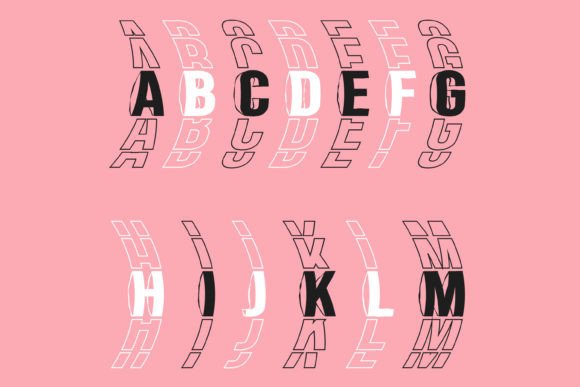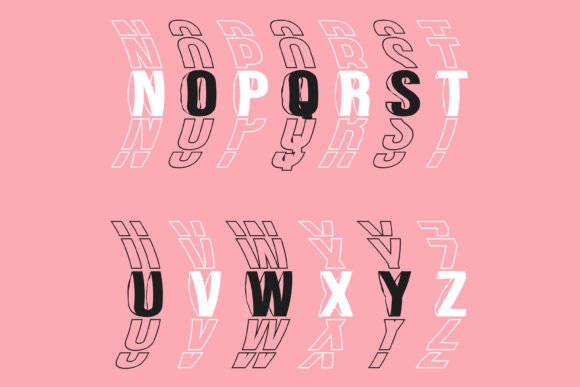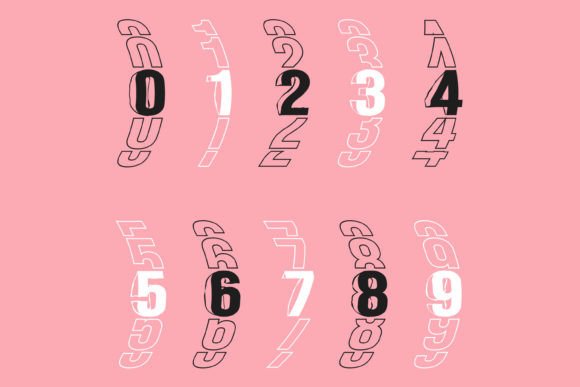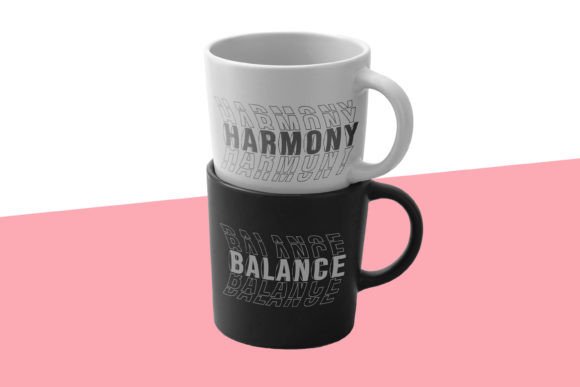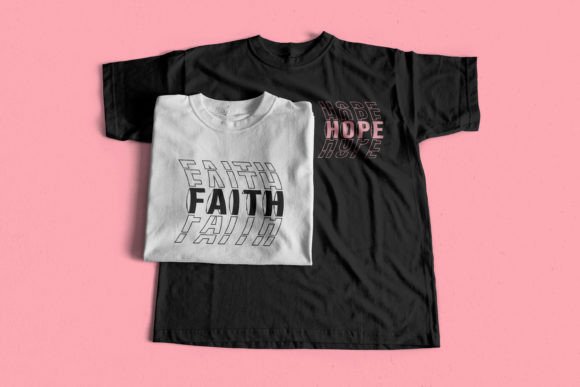
Introduction to Pipeline Font
As you sit in front of your computer, surrounded by design resources and fonts galore, you’re searching for that one special font that will elevate your creative project to the next level. It’s a moment many designers can relate to – the hunt for the perfect font that will bring your vision to life.
Enter the Pipeline Font, an incredibly cool display font that’s sure to catch your eye. With its unique style and high-quality design, it’s no wonder why designers and crafters alike are raving about this versatile font. Whether you’re working on a custom design or a DIY craft, the Pipeline Font is an amazing choice for adding a touch of elegance and sophistication to your creation.
One of the standout features of the Pipeline Font is its transparent background, making it easy to overlay on any design or image. Plus, it’s a free download, making it a valuable resource for designers and creatives on a budget.
Pipeline Font
- High-quality design resource featuring a modern and sleek aesthetic, ideal for creative projects.
- Comes in a single weight, making it easy to use in a variety of creative projects.
- Supports a range of languages, including Latin, Cyrillic, and Greek alphabets.
- Perfect for use in logos, branding, and other visual identity elements due to its clean and minimalist design.
Honest Review: Pipeline Font
I recently stumbled upon the Pipeline Font while searching for a unique design resource to enhance my creative project. As a designer, I’m always on the lookout for high-quality fonts that can elevate my work. The Pipeline Font did not disappoint.
- ✨ The font’s modern and minimalist design makes it perfect for a variety of creative projects, from logos to branding materials.
- ✨ The font is available for free download, making it an excellent option for designers on a budget.
- ✨ The font’s transparent background allows for seamless integration with other design elements.
While the Pipeline Font excels in many areas, there are a few limitations to consider.
- ⚠️ The font may not be suitable for projects requiring a more traditional or formal look.
- ⚠️ The font’s limited character set may not be ideal for extensive text-based projects.
Overall, I’m impressed with the Pipeline Font’s versatility and high quality. It’s a great addition to any designer’s toolkit, and I’d definitely recommend it for creative projects requiring a modern and minimalist touch.
Pipeline Font
The Pipeline Font is a high-quality design resource ideal for creative projects that require a modern and sleek look. This free download features a transparent background, making it easy to integrate into various design platforms.
The Pipeline Font is ideal for:
- Branding projects